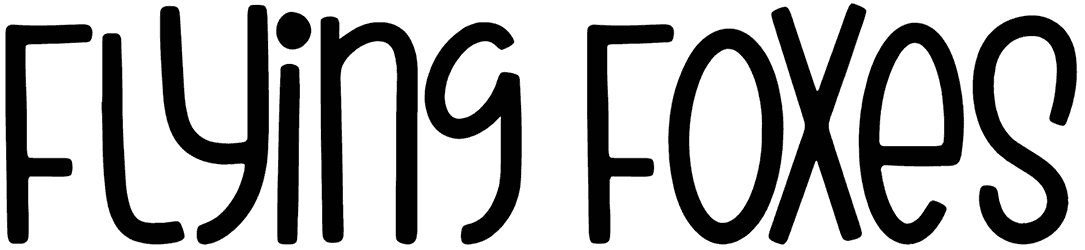
Flying Foxes Font
Let’s take a look at Flying Foxes, a cartoon font that contains a cute display, evoking the playful vibes of childhood days or maybe a little naughtiness! This handwritten font supports a mixture of uppercase and lowercase letters and it is easy to read. Therefore, makes it perfect for comic books, gaming, kid’s apparel, packaging, and children’s show.